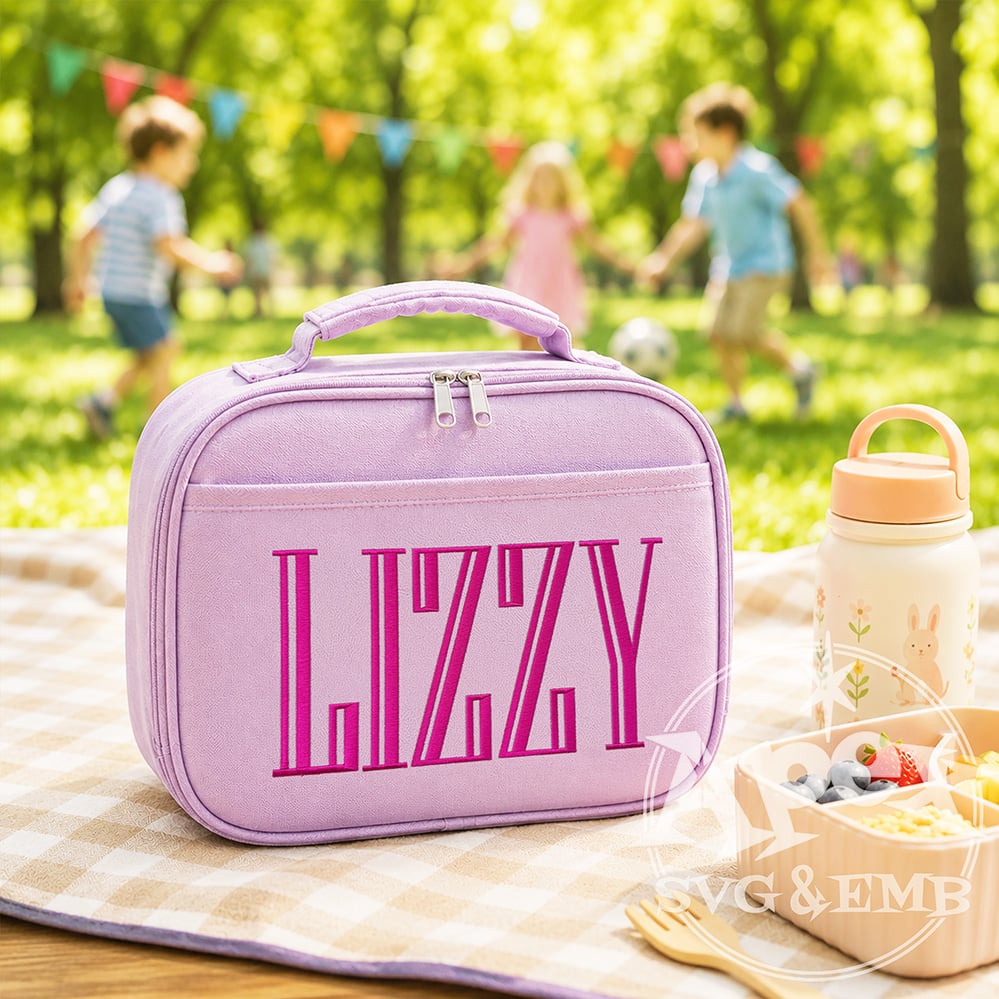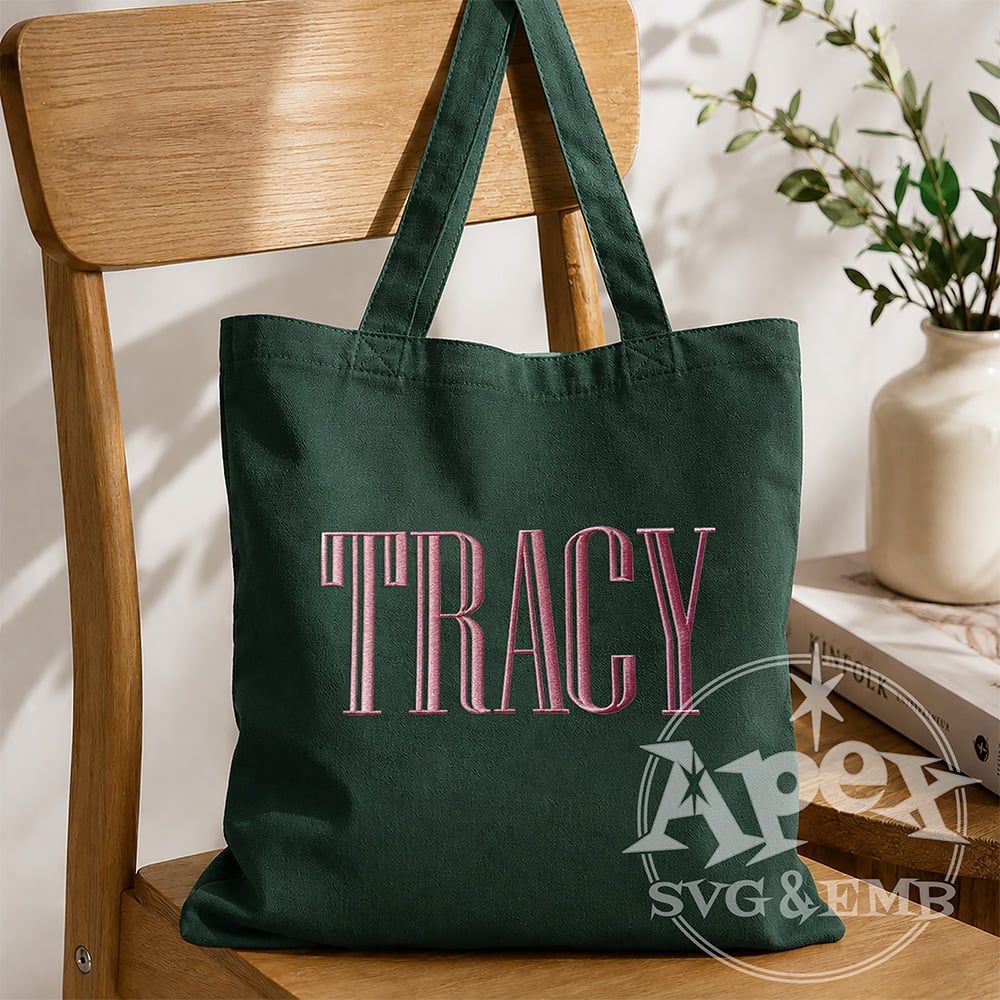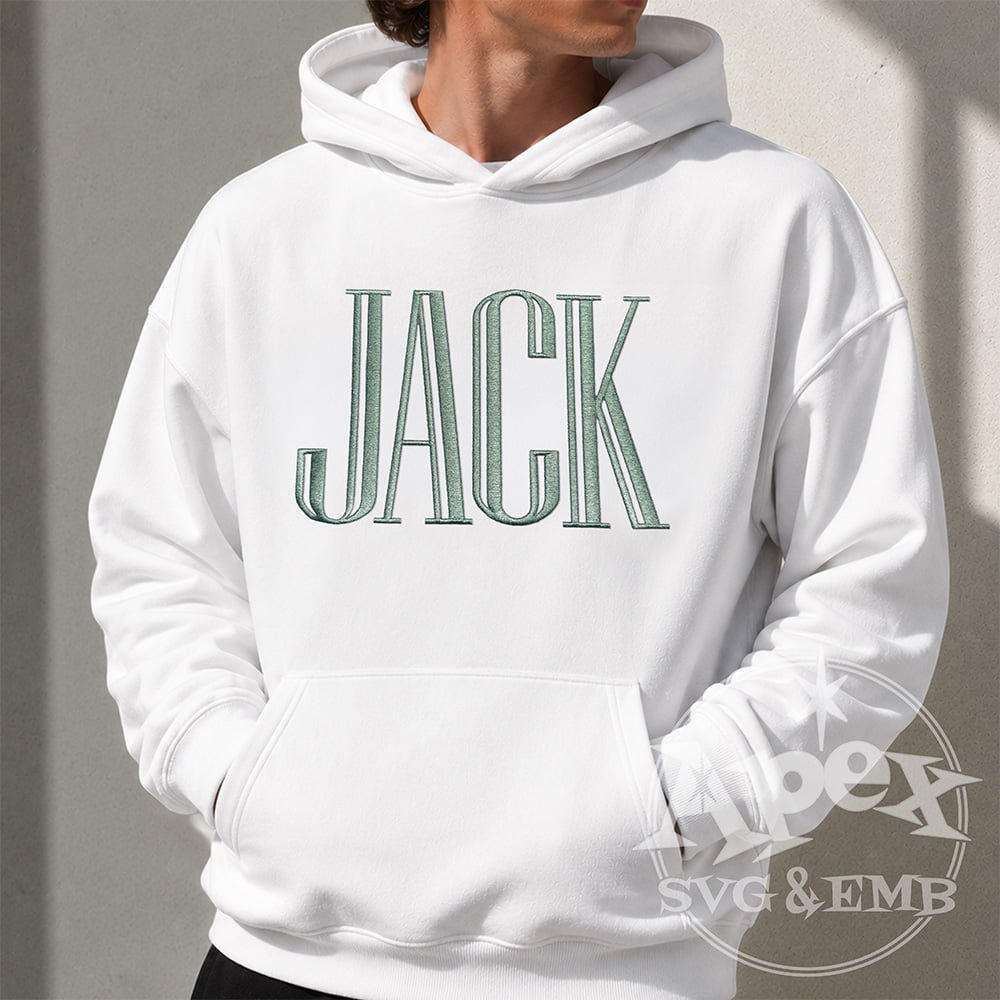
Bain Embroidery Font
Needle punch air, pull thread taut. Bain shape born from desire for vertical lift, airy geometry. Dual satin columns run parallel, slice open negative space between tracks. Light bounce off parallel stitch lines. Letters stand tall, command eyes, waste zero hoop width. Pure architectural power for bespoke monogramming.
Project Ideas for Bain
Slim footprint suits heirloom embroidery and personalized gifting:
- Luxury table linens and linen cocktail napkins: pair tall initials with crisp dinner sets.
- Bespoke resort wear and canvas boat totes: vertical strength anchors thick weave surfaces.
- Heirloom bedding and bath sheets: high letter heights bring boutique hotel elegance.
- Bridal robes and tailored garments: clean parallel satin finish looks sharp on silk, cotton pique.
Position for maximum vertical impact:
- Left chest: run single initial or staggered trio inside tight pocket zones.
- Tote bags and duffel sides: use large scale letters dead center between handle straps.
- Table runner and napkin corners: stitch 45-degree angle diagonal along hem edge.
- Jacket back center: build massive center-tall monogram stack.
Bain Craft & Letterform Details
Drafted Bain on grid. Wanted double-line motif without stitch weight drag. Digitized twin satin rails with micro-gap balance. Narrow letterforms keep clean line flow across dense weave fabric. Underlay locks core thread tight, prevents column drift. Curves sweep steep, serifs stay minimal. Result: satin stitch alphabet sharp at distance, delicate up close. Dual tracks catch light twice, double sheen on single pass.